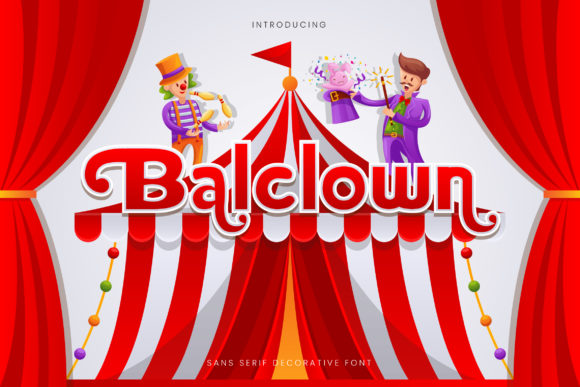
Introducing Balclown, the charismatic display font that will ignite your creativity and make your designs shine! Crafted by naulicrea, this bold and chunky font exudes a playful charm that's perfect for captivating young minds.
Imagine the whimsical covers of children's books adorned with Balclown's cheerful letters, inviting little readers on a magical adventure. Its sturdy strokes and playful curves dance across the page, engaging imaginations and sparking a love of reading.
With Balclown, your designs will radiate warmth and personality. Its captivating nature makes it an ideal choice for educational materials, posters, and any project that seeks to connect with children. Unleash your creativity and let Balclown's vibrant spirit transform your work into a captivating experience.
Each letter of Balclown is meticulously crafted to evoke joy and curiosity, making it the perfect font for captivating young minds. Its bold presence demands attention, while its playful charm creates an instant connection. Download Balclown today and embark on a creative journey filled with smiles and wonder!